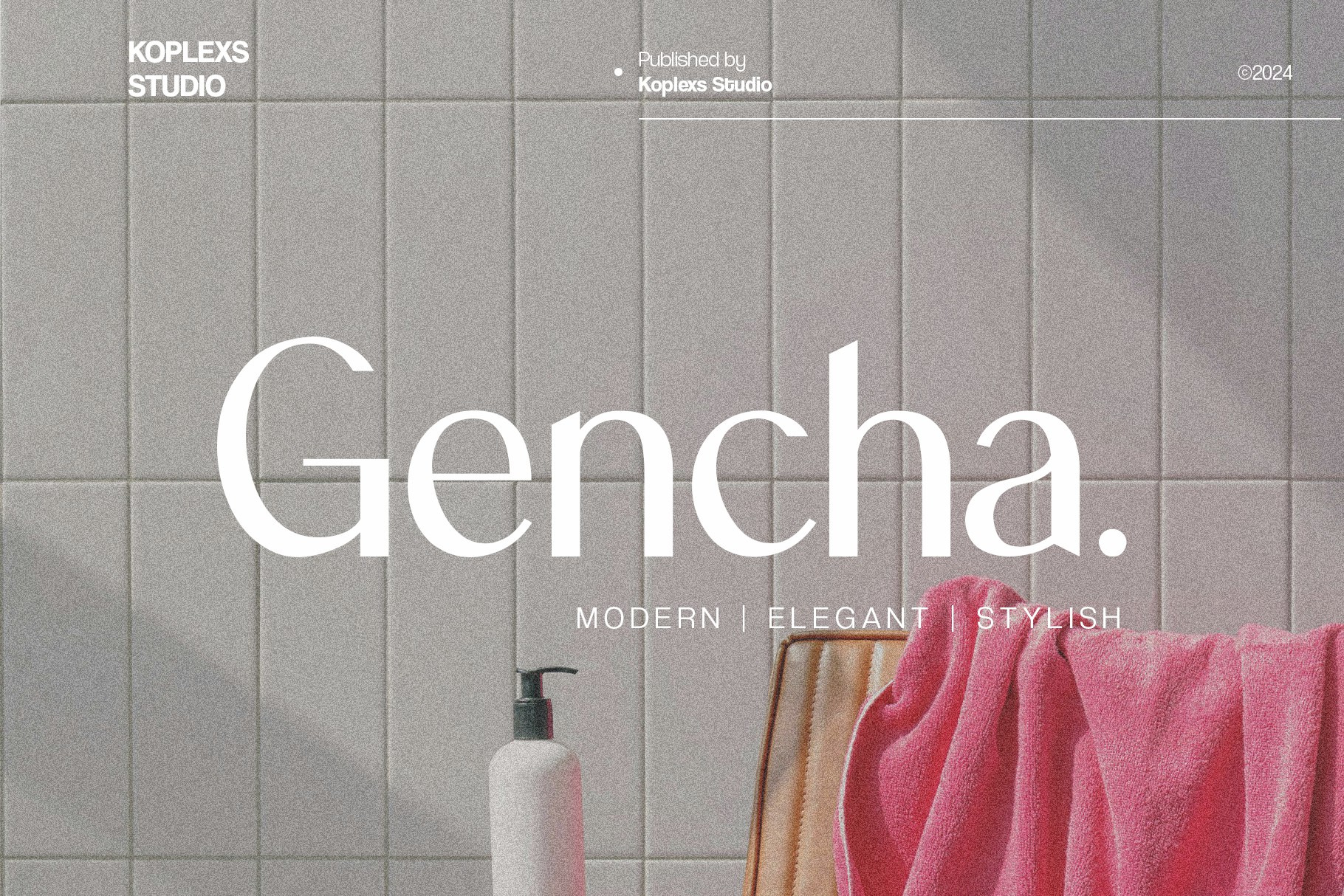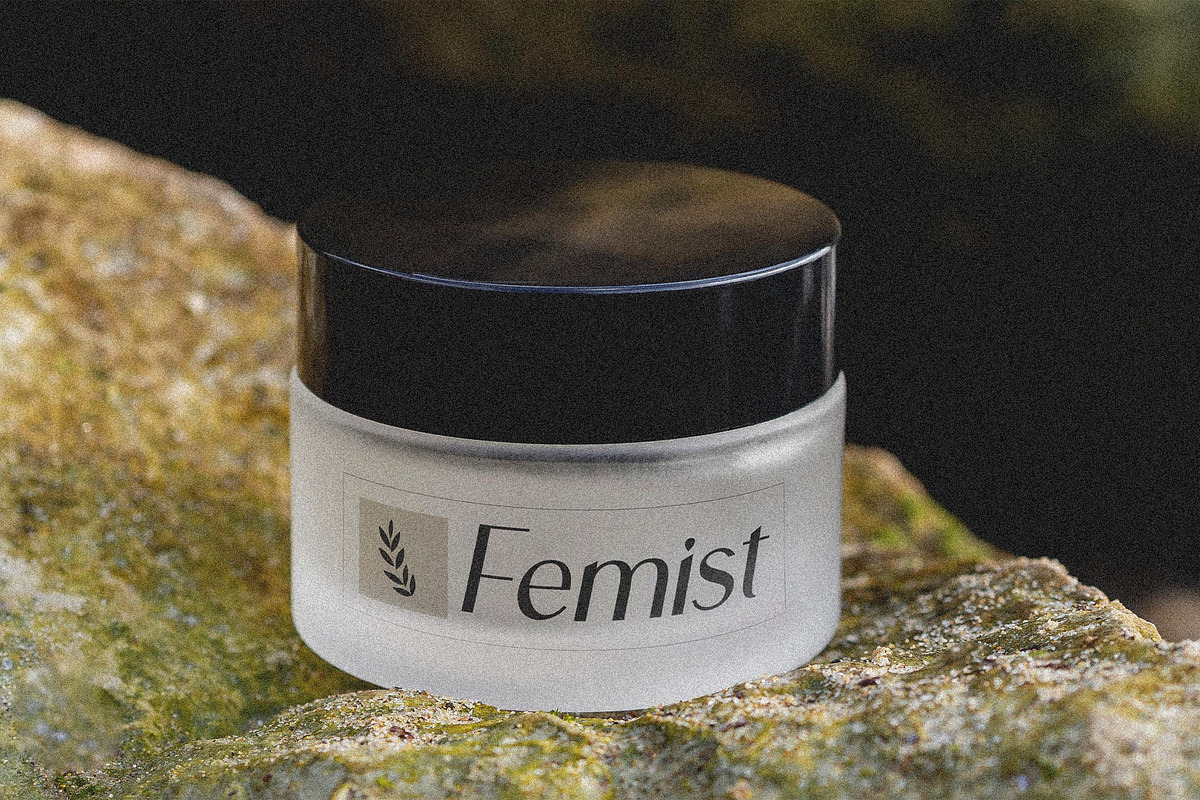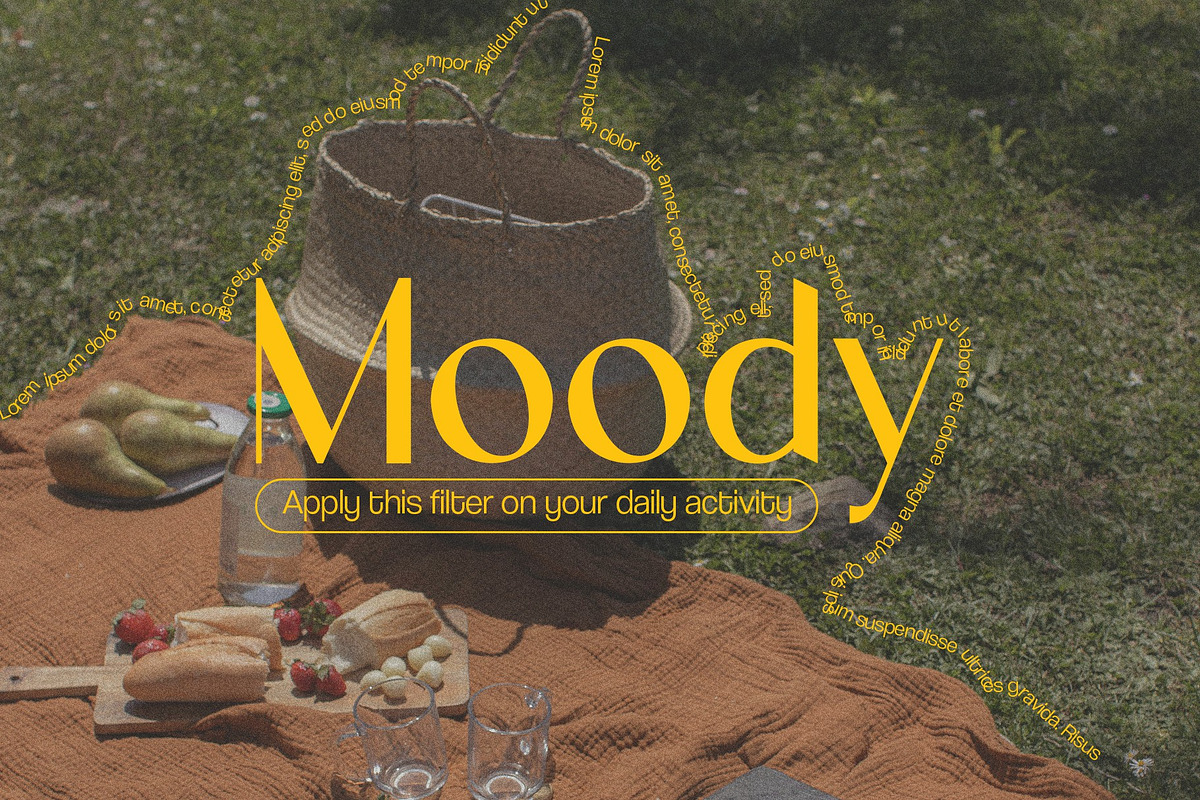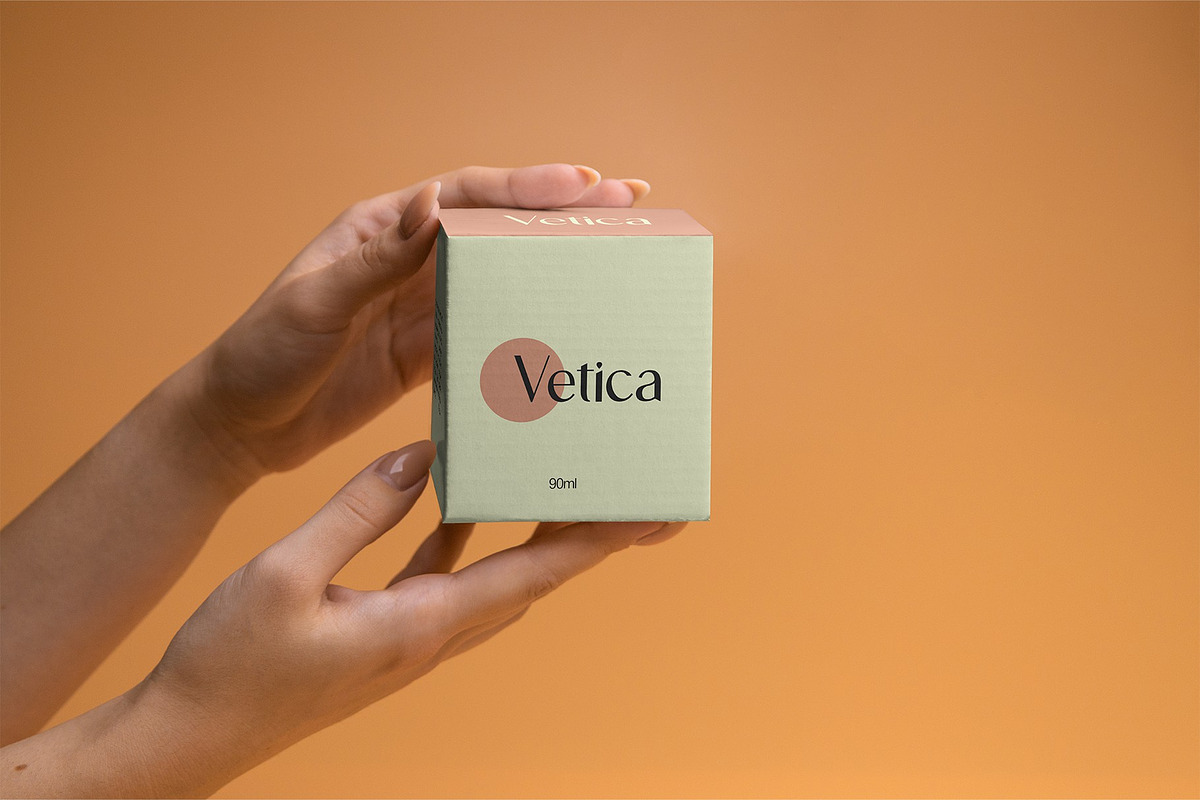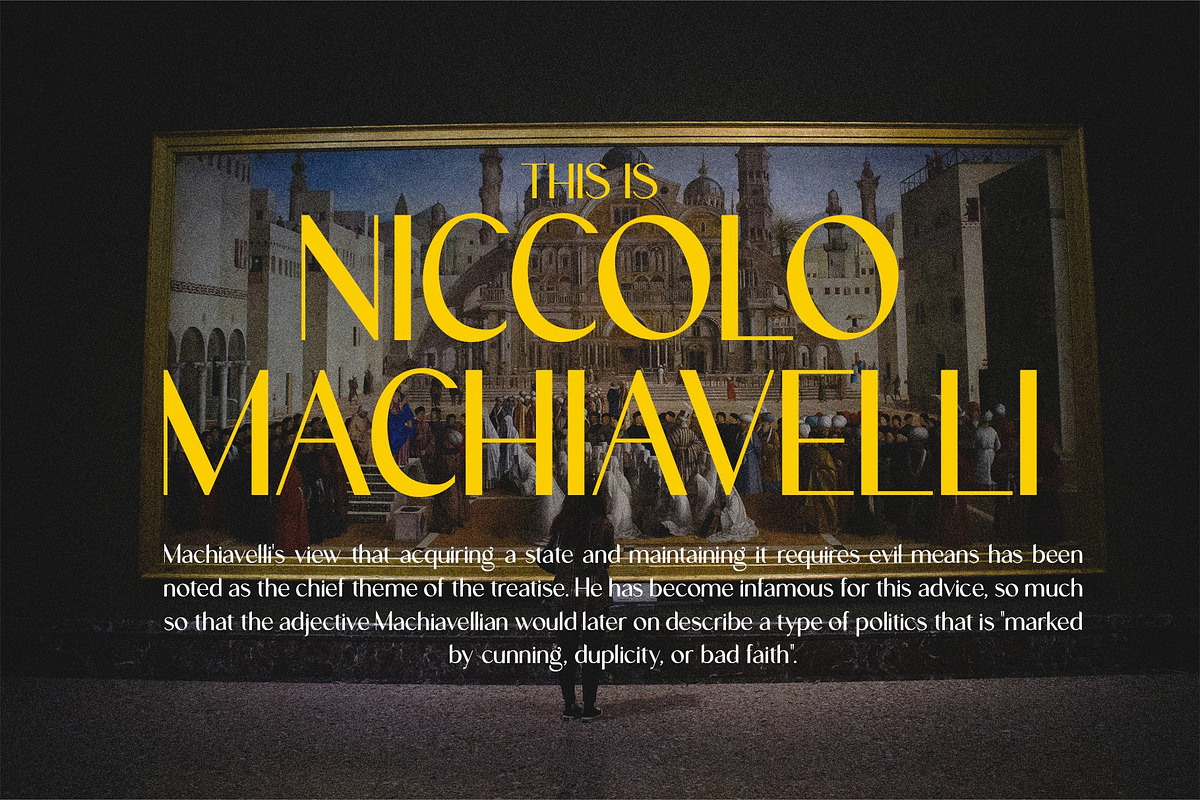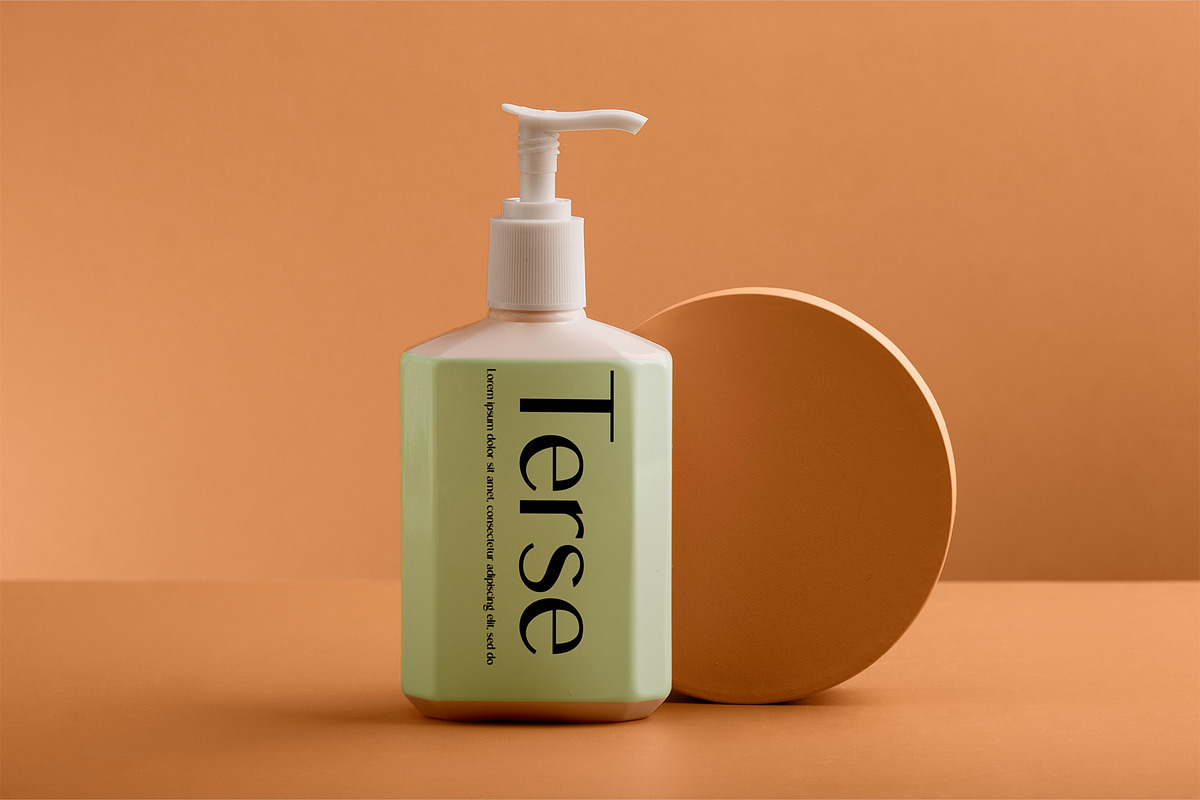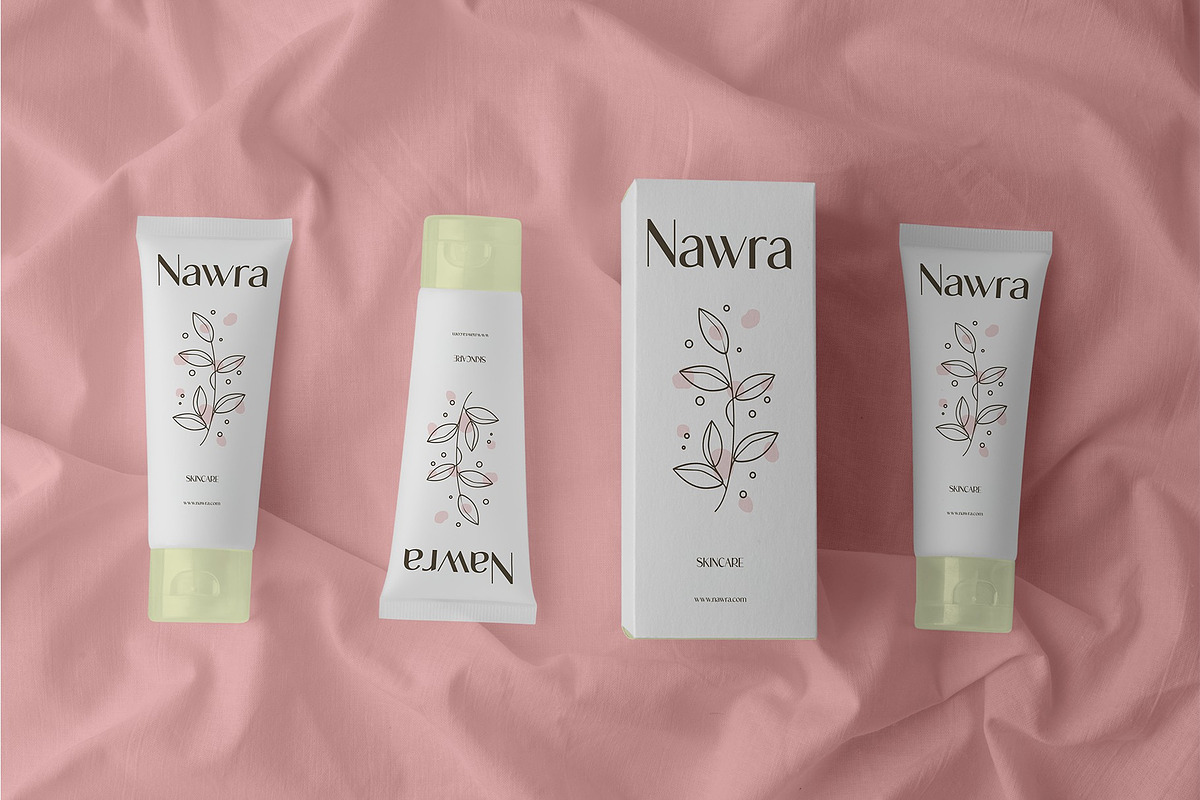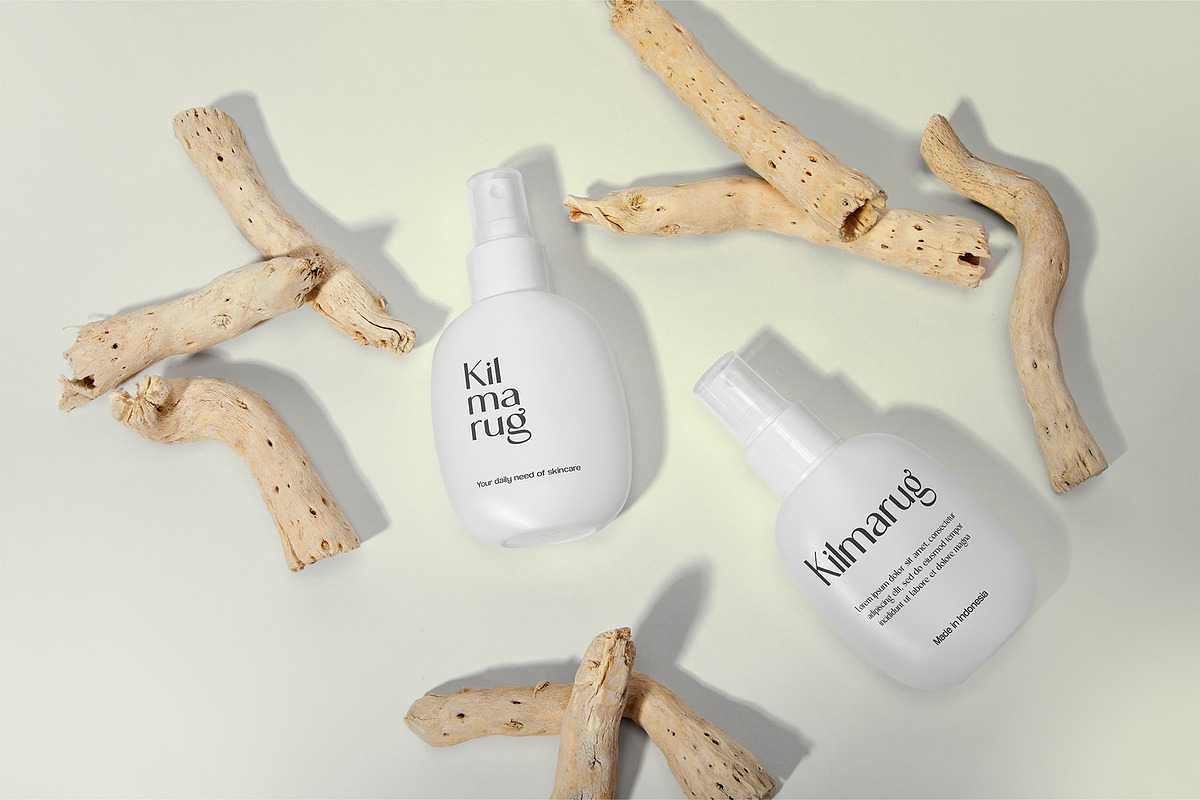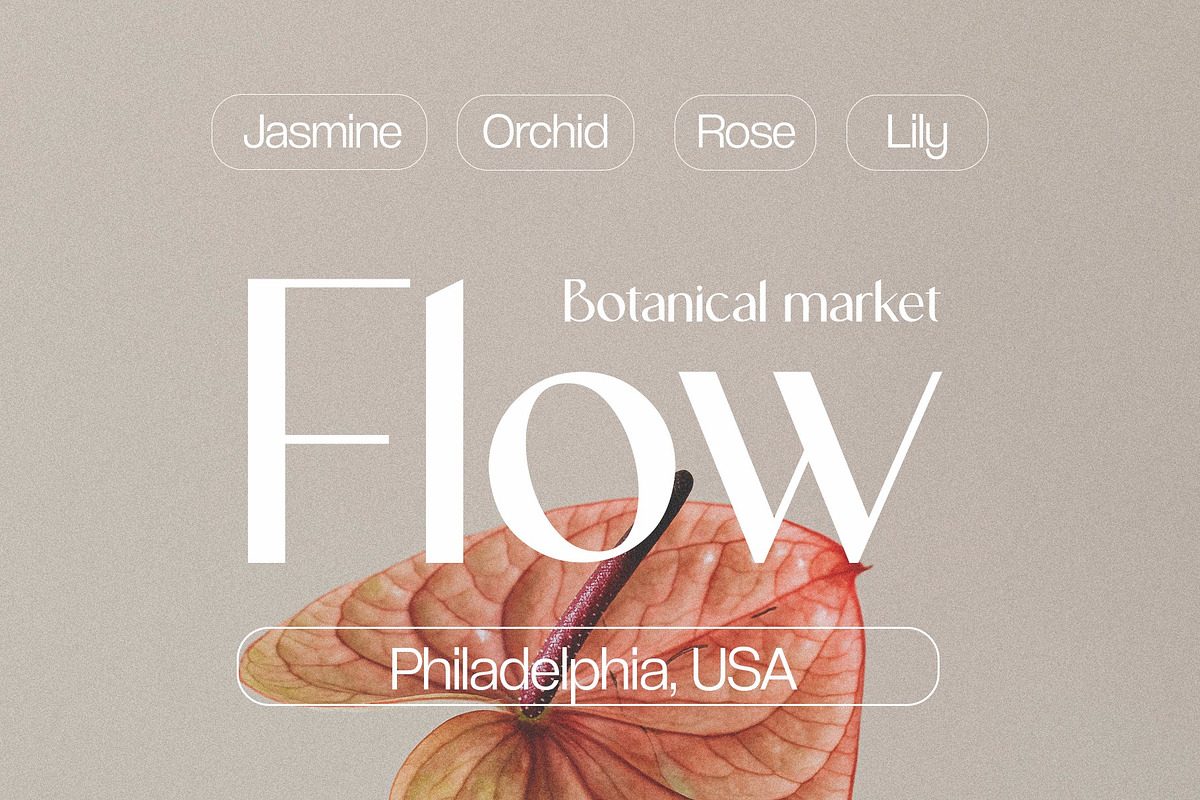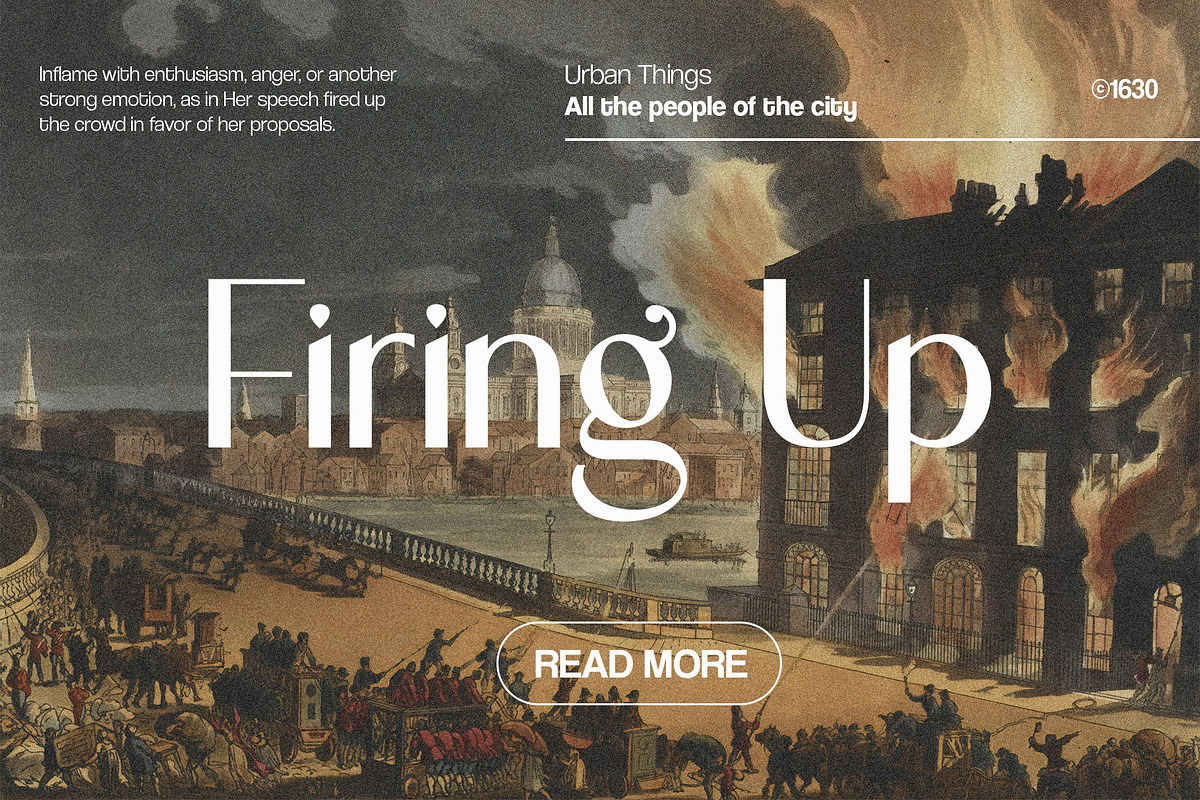
Gencha - Sans Serif Font
Sans Serif Font
Gencha - Sans Serif Font: Elevate Your Designs with a Modern and Elegant Touch
Gencha, a carefully crafted sans serif font to bring a modern and elegant touch to your designs. Designed with the perfect balance between elegance and functionality, Gencha is suitable for a variety of creative projects, from branding, web design, to editorial design.
Key Features of Gencha:
- Regular and Italic: Gencha comes in two styles, Regular and Italic, allowing you to add variation and emphasis to your designs.
- Easy to Read: The clean and simple letterforms make Gencha easy to read at various sizes, both on screen and in print.
- Versatile: Gencha can be used for various types of designs, from minimalist to modern, and is suitable for a variety of creative projects.
- Multi-Language Support: Gencha supports multiple languages, so you can use it for designs intended for a global audience.
Gencha is Perfect for:
- Branding Design: Create memorable logos, taglines, and brand identities with Gencha.
- Web Design: Create engaging and easy-to-navigate websites with Gencha.
- Editorial Design: Create professional and informative magazines, brochures, and reports with Gencha.
- Packaging Design: Create eye-catching and standout product packaging with Gencha.
- Poster and Flyer Design: Create attention-grabbing posters and flyers with Gencha.
- Alternate Features
- Ligature Features
- Support for 68 languages (by Fontdrop)